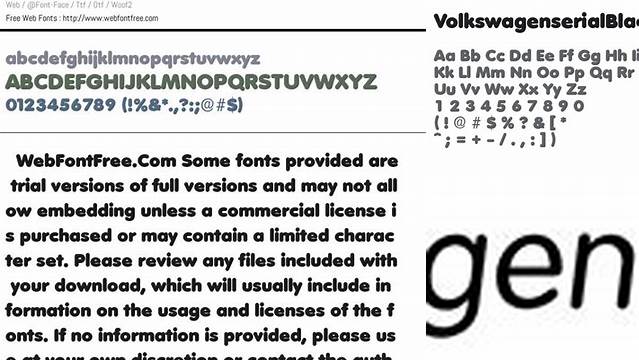
Volkswagen Serial Black Free Font: Your Ultimate Guide
Diving into the World of Volkswagen Serial Black
Hey guys, let's talk about something super cool – the Volkswagen Serial Black font. If you're into design, branding, or just dig a sleek, modern look, this font is definitely worth knowing about. It's a bold, no-nonsense typeface that screams quality and sophistication. Think of it as the visual equivalent of a finely tuned German engine: precise, powerful, and undeniably stylish. This article is your go-to guide for everything you need to know about this awesome font, including where to snag it for free and how to make the most of it in your projects. We'll explore its history, the best uses, and some cool tips to help you use it like a pro.
Volkswagen Serial Black isn't just another font; it's a statement. It was originally designed for Volkswagen's branding and has since become a popular choice for various design projects. Its clean lines and strong presence make it ideal for headlines, logos, and any situation where you want to grab attention. Because of its distinctive characteristics, the font is very often used for branding purposes, conveying reliability, and a forward-thinking approach. But, don’t worry, you don’t need to be a massive car manufacturer to enjoy it. Many designers and creatives like you and me use it for a wide range of projects. Think websites, print materials, presentations, and even social media graphics.
So, why is this font so special? Well, its design is based on geometric shapes and offers excellent readability, particularly at larger sizes. The clean lines and bold weight give it a modern feel, making it perfect for projects that aim to convey trustworthiness and professionalism. Now, while this font is often associated with the Volkswagen brand, you are not limited to using it just for automotive-related projects. Its versatility makes it a valuable asset in any designer's toolkit. Whether you are creating a new website, developing a brand identity, or just want to add a touch of sophistication to your designs, this font is an excellent choice. The simplicity of Volkswagen Serial Black also contributes to its appeal. It is easily readable and does not distract from the message you are trying to convey. This is especially important in marketing materials and branding, where clarity is key to communicating your message. In the next sections, we'll dive deeper into where to find this font and how to use it effectively.
Best Uses and Applications for Volkswagen Serial Black
So, you've got the font, now what? Volkswagen Serial Black is incredibly versatile, which is why it's become such a favorite among designers. Understanding its best uses will help you unleash its full potential. This font shines in a few key areas. Its strong, bold appearance makes it perfect for headlines and titles. The font is designed to grab the reader's attention and deliver a clear message. Use it to create impact and to make sure your headlines stand out. Its readability at large sizes makes it a great choice for websites, brochures, and posters.
Beyond headlines, Volkswagen Serial Black is also a solid choice for logos and branding. Its clean lines and modern look project a sense of professionalism and trust, which are key for building a brand identity. Consider using it for your company logo, website, or any other marketing materials where you want to communicate a reliable and forward-thinking image. The font's versatility makes it ideal for a wide range of projects. Whether you are designing a website, creating a presentation, or producing print materials, this font can adapt to fit your needs. It is a great way to create a cohesive look across your projects.
Another popular application for the font is in infographics and data visualizations. Its clear and concise appearance helps to present information in an easy-to-read format. Use it to label charts, graphs, and other visual elements in your infographics to improve clarity. Volkswagen Serial Black can also be used effectively in print materials. Its strong presence translates well to physical designs, making it suitable for posters, brochures, and flyers. The readability of the font at various sizes ensures that your message is clear and easy to understand. Lastly, don’t be afraid to experiment! Try using the font in unexpected ways. See how it looks in various design layouts. Experimenting is the best way to discover unique applications and to push creative boundaries. With its sleek and modern aesthetic, the font can elevate your designs and add a touch of sophistication to your projects. So, go out there, and start creating!
Tips and Tricks for Using Volkswagen Serial Black Effectively
Alright, let's get your design game to the next level! Here are some killer tips and tricks to help you use the Volkswagen Serial Black font like a pro. Mastering this font requires understanding the nuance of its usage. From pairing it with other fonts to optimizing readability, these techniques will help you make the most of this stylish typeface. First and foremost, consider font pairing. While Volkswagen Serial Black is amazing on its own, combining it with another font can create even greater visual interest and balance. Pair it with a contrasting font for body text. Try using a lighter, more elegant font for the body of your text to create a nice balance. The strong, bold appearance of Volkswagen Serial Black will complement a softer font. Experiment with different combinations to see what works best for your project.
Don't be afraid to experiment with the font and explore its full potential. Play with different font combinations, color palettes, and layouts to find what works best for your projects. And remember, always respect the licensing terms and copyright laws. It is important to stay creative, and enjoy the process of design. And finally, have fun with it! Design should be enjoyable, and the Volkswagen Serial Black font provides an excellent opportunity to express your creativity. Get out there, create something amazing, and let your creativity shine! Thanks for joining me on this font adventure, and I hope you have a blast using this fantastic typeface!